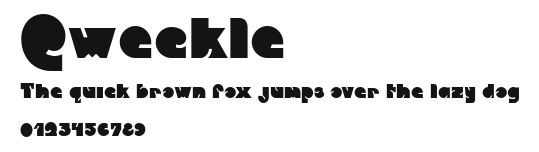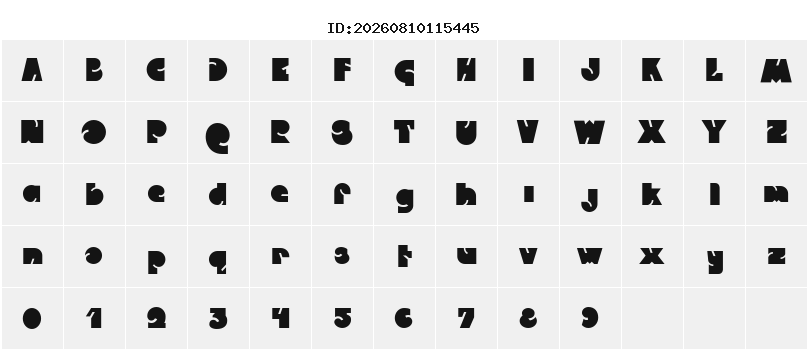
• Font Name: Qweckle
• Full Font Name: Qweckle
• Designer: Crystal Wiesner
• Manufacturer: Crystal Wiesner
About Qweckle.ttf
Qweckle.ttf is a modern, elegant sans-serif font designed for ultimate readability and visual harmony. Perfect for branding, headlines, web design, and print materials.